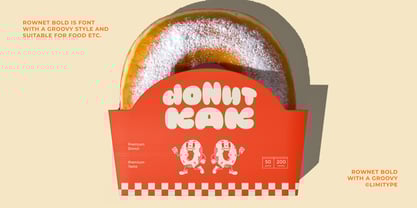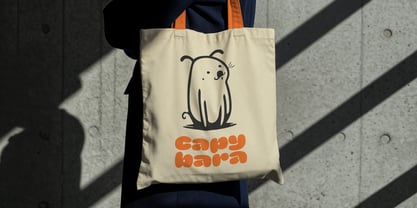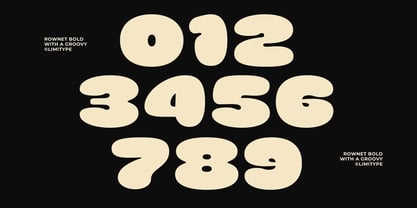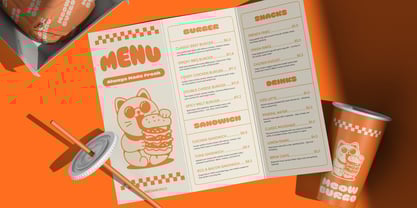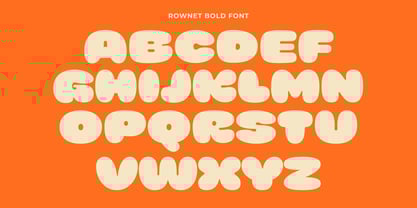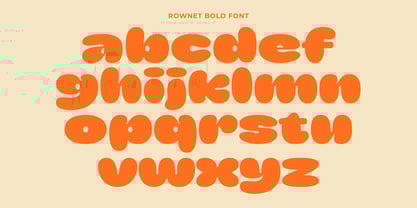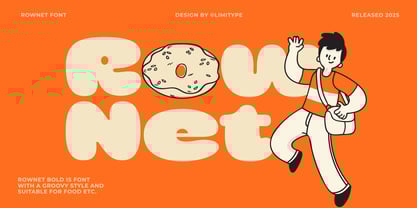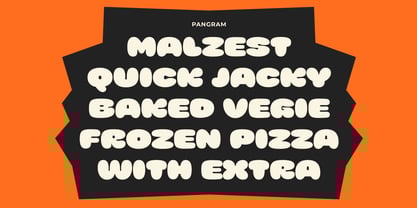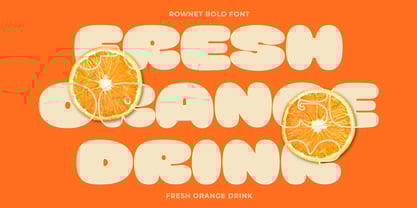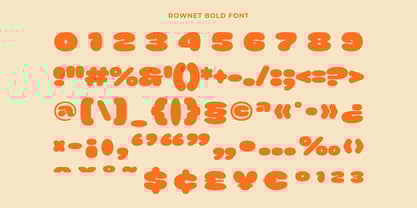
Rownet
by limitype
The Rownet Font Family was designed by Muhammad Muammar, Furqan Sudirman and published by limitype. Rownet contains 1 styles. More about this family
Rownet is a bold typeface with soft, rounded shapes crafted in a bubbly style that brings out a fun and playful feel. It works perfectly for food designs, branding, packaging, and headlines that need a bold, chubby, bubbly, and cheerful look, offering a friendly charm, vibrant personality, and an eye catching visual appeal. Rownet available with: Uppercase Lowercase Number Symbol Multilingual
Designers: Muhammad Muammar, Furqan Sudirman
Foundry: limitype